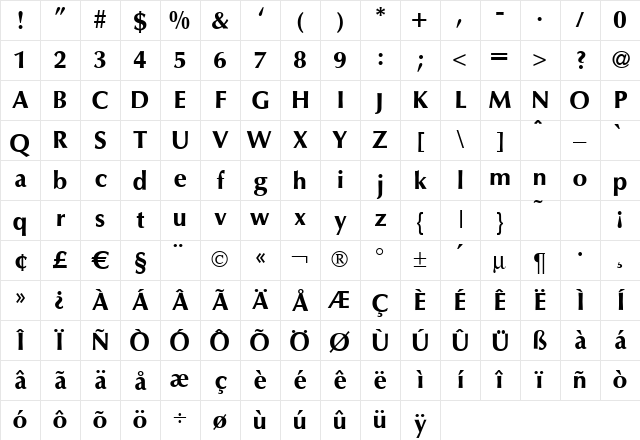
O801-Flare Bold
Design Context for O801-Flare
O801-Flare is a composed and adaptable typeface that performs quietly and consistently across a wide range of design contexts. Its bold stroke weight gives it real presence on the page.